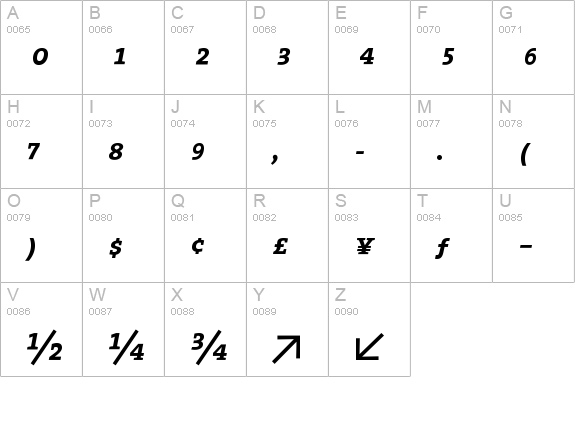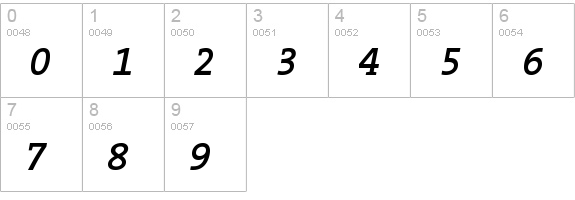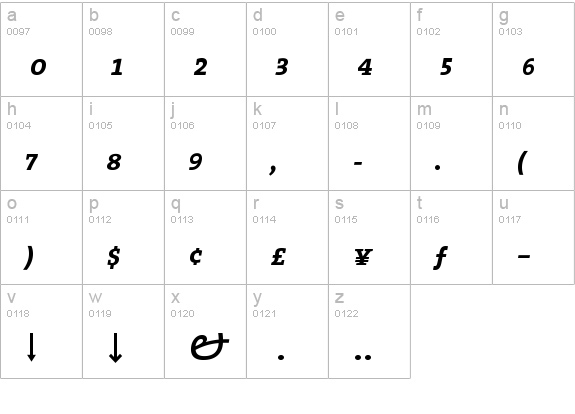
TheSerif SemiBold Expert Italic Font Details
TheSerif SemiBold Expert Italic is a sub-bold, structured, italic variant in the TheSerif typeface family \xE2\x80\x94 well suited to sub-headlines and emphasised passages.
TheSerif SemiBold Expert Italic font is an elegant and sophisticated typeface that exudes confidence and professionalism. Its stylish and distinctive letterforms are perfect for adding a touch of sophistication to any project. With its semi-bold weight, this font strikes the perfect balance between being bold enough to command attention and being refined enough to maintain readability. The italic style adds a sense of dynamism and elegance, making it ideal for use in headings, titles, branding, and other design projects that require a touch of flair. TheSerif SemiBold Expert Italic font is a versatile typeface that can be used across a wide range of design applications. Whether you're creating a sleek corporate identity, designing a magazine layout, or crafting an eye-catching poster, this font will effortlessly elevate your design to a new level of professionalism. One of the best things about TheSerif SemiBold Expert Italic font is that it is freely available to download at FontsMarket.com. This means that you can access this high-quality font at no cost, making it an excellent choice for designers, students, or anyone looking to add a touch of sophistication to their projects without breaking the bank. Overall, TheSerif SemiBold Expert Italic font is a visually striking and versatile typeface that combines elegance and professionalism. Its free availability on FontsMarket.com allows you to easily incorporate this font into your designs, making it a must-have for anyone looking to make a lasting impression.